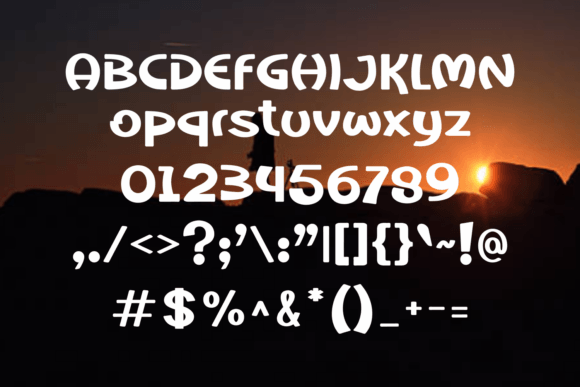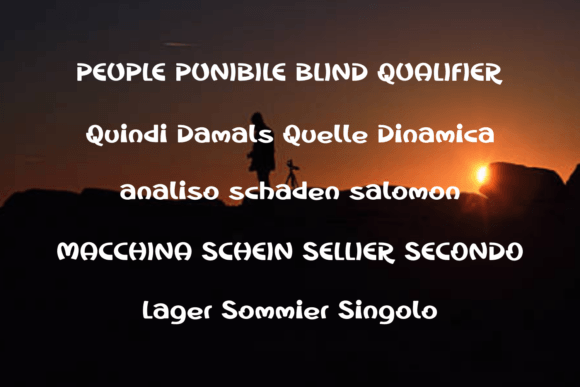
Unleashing Creativity with Brokus Font
Have you ever stared at a blank page, struggling to find the perfect words to bring your idea to life? You’re not alone. As creatives, we’ve all been there – desperate for that one element to make our vision truly shine. That’s where the Brokus Font comes in – a cool and unique sans serif display font designed to elevate any creation.
Whether you’re a graphic designer, artist, or writer, the Brokus Font is an incredible asset to have in your toolkit. Its versatility makes it perfect for a wide range of projects, from bold headlines to subtle text overlays. With the Brokus Font, you’ll have the freedom to experiment and push the boundaries of your creativity.
Brobks Font Key Features
- Font Family: Brobks Font comes in a single font family, ideal for use in logos, headings, and titles.
- Unique Characteristic: The Brobks Font features a unique blend of modern and vintage elements, making it perfect for designs that require a touch of sophistication and elegance.
- Character Set: Includes a wide range of characters, including Latin, Cyrillic, and Greek alphabets, as well as punctuation and special characters.
Overall, I’m quite impressed with the Brokus font. Here’s what I like about it:
- ✨ Its unique, hand-drawn style makes it perfect for adding a touch of personality to your designs.
- ✨ The font is highly customizable, with a wide range of weights and styles to choose from.
- ✨ It’s great for use in titles, headings, and other prominent text elements, as it really stands out from the crowd.
- ⚠️ The font may not be the best choice for body text, as it can be a bit too ornate and difficult to read in larger blocks of text.
- ⚠️ Some of the more elaborate styles may not render as well in certain contexts, such as on low-resolution screens or in small font sizes.
Overall, I’d give the Brokus font 4 out of 5 stars. It’s a great choice for designers looking to add some visual interest to their projects, but it may not be the best fit for every design.
For optimal use, pair Brockus font with a clean and simple background. Experiment with different font sizes and colors to create visually appealing designs. Brockus font works well for titles, headings, and body text.
Brockus font is suitable for various design applications, including:
– Title cards and posters
– Infographics and data visualizations
– Digital and print publications
Alternatives to Brokus Font
Merriweather is a serif font designed by Eben Sorkin. It is a classic font suitable for print media and formal designs. Use Merriweather for traditional and elegant designs, especially in headings and titles. Merriweather is different from Brokus Font in its serif style, but it shares a similar classic and sophisticated feel.
The Brokus Font is a TrueType font that supports Unicode characters and is available in a range of weights, from Light to Bold. It has a x-height of 0.5 and a cap height of 0.7, making it suitable for use in a wide range of design projects. The font also includes a range of OpenType features, including ligatures, fractions, and stylistic sets.